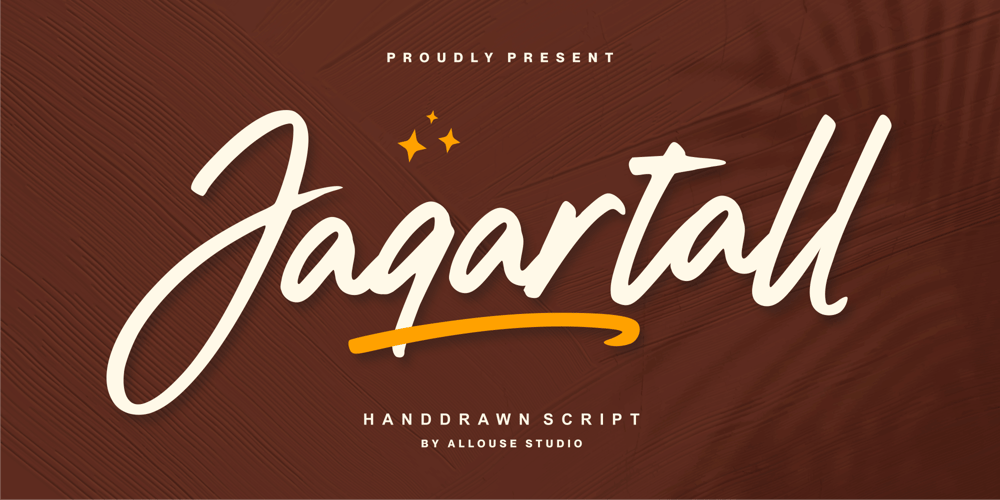
Jaqartall
Jaqartall font
Jaqartall Font Family was designed by Fachrizal Yusuf and published by Allouse Studio. Jaqartall contains 1 styles and family package options. Proudly Presenting, Jaqartall A Handdrawn Script Font.Jaqartall is perfect for any titles, logo, product packaging, branding project, megazine, social media, wedding, or just used to express words above the background.Jaqartall also come with Multi-Lingual Support.Enjoy the font, feel free to comment or feedback, send me PM or email. Thank You!